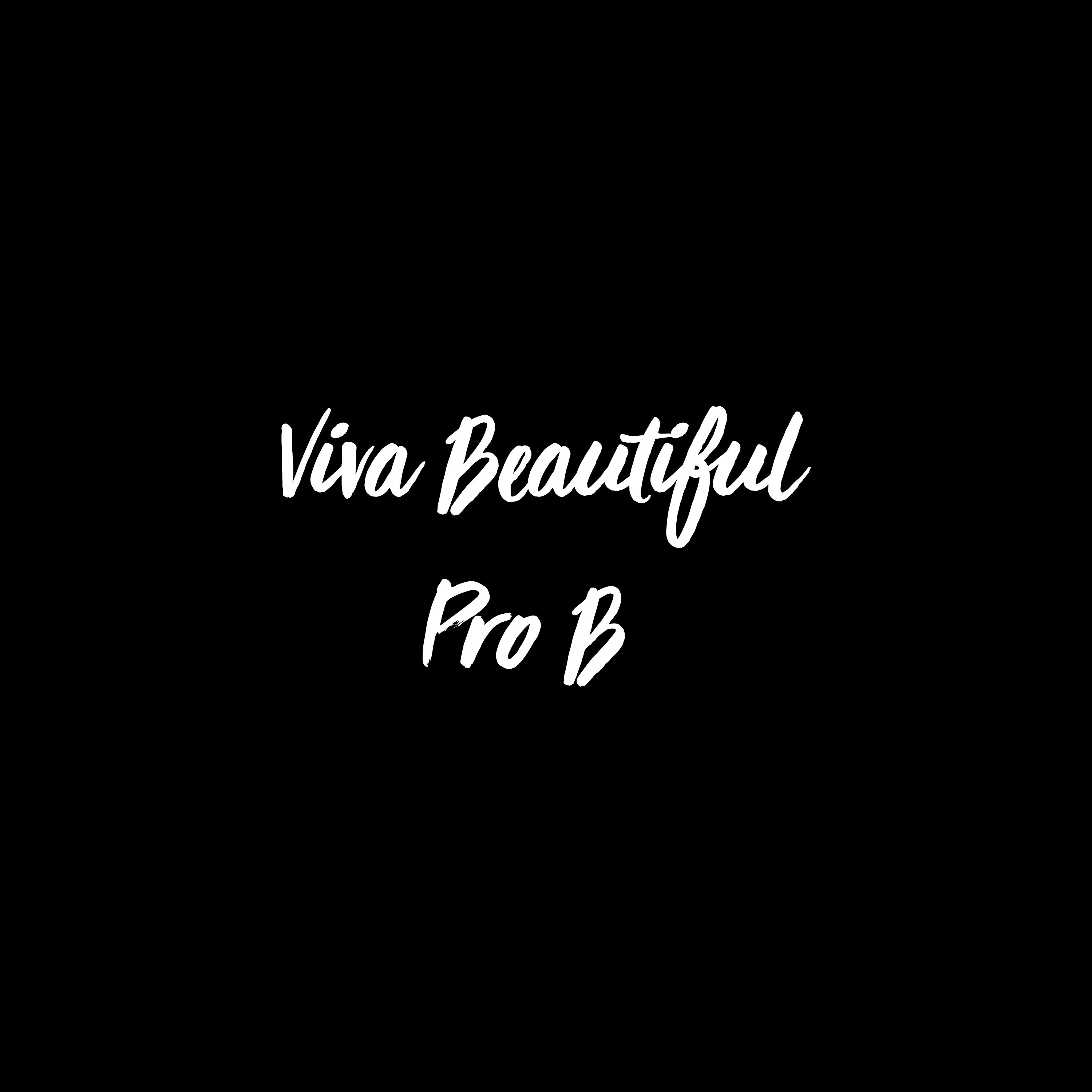
VIVA BEAUTIFUL PRO B FONT is a lovely hand-painted brush script. Viva Beautiful Pro B font includes OpenType alternates and common ligatures. Try the alternates and ligatures to give your designs a realistic hand-painted look. Viva Beautiful Pro B font includes OpenType ligatures.
Try using the Viva Beautiful font for fashion, beauty products, food, apparel, and magazines. Viva Beautiful could also be used for film, television, marketing, advertising, and websites. Bring beauty to your designs with Viva Beautiful!
Viva Beautiful Pro B Font